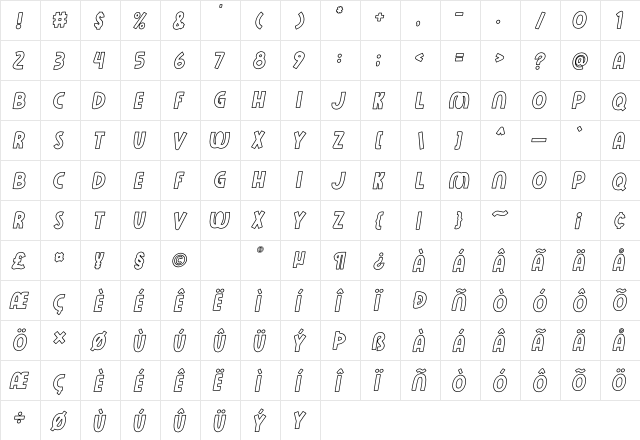
Rose Minie LineItalic
Design Context for Rose Minie Typeface
Rose Minie is a composed and adaptable typeface that performs quietly and consistently across a wide range of design contexts. The dynamic lean of this cut emphasises speed and emphasis in any layout.
Pro Tip: Try Rose Minie for annotation and caption copy alongside an upright companion — the contrast in angle creates a dynamic but ordered typographic system.